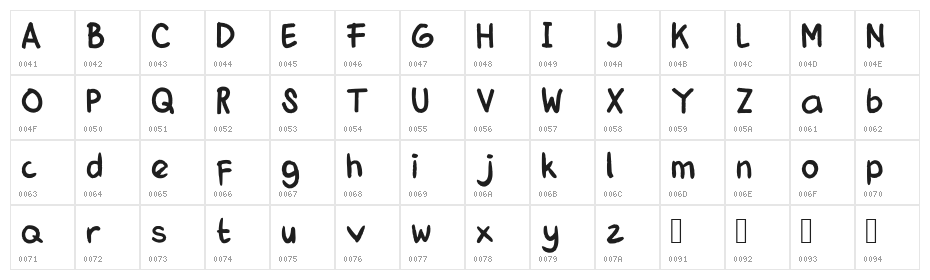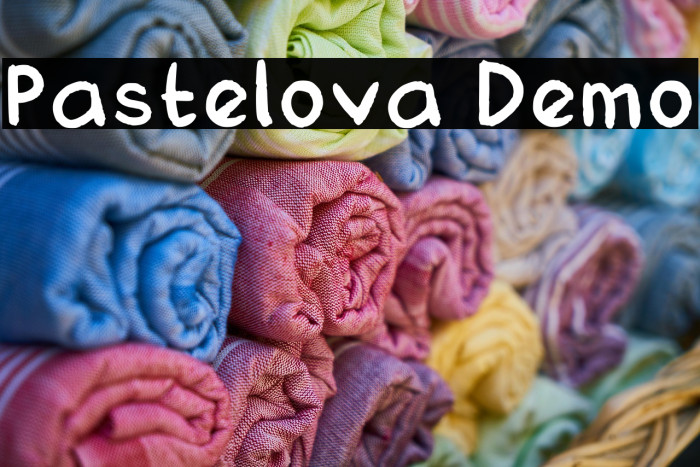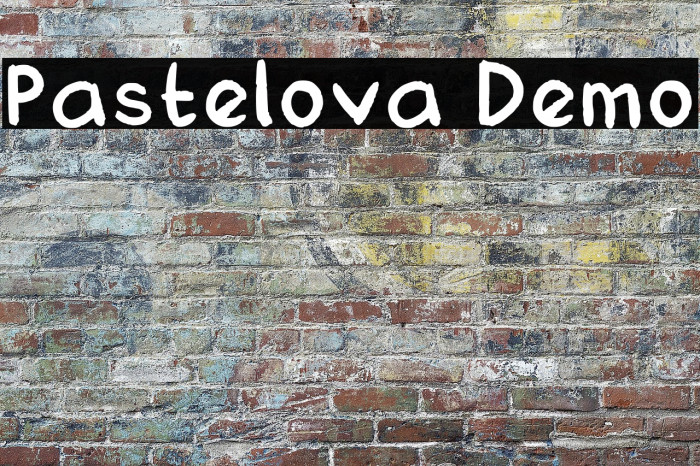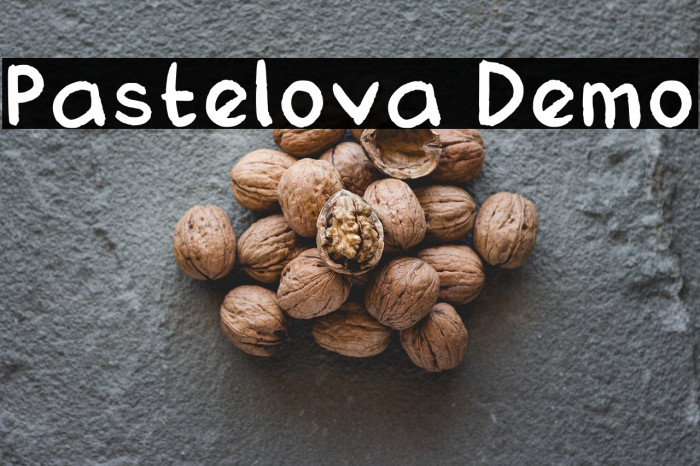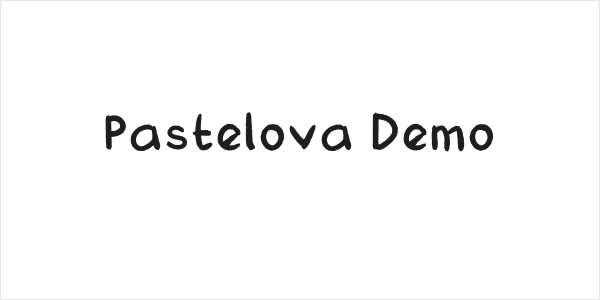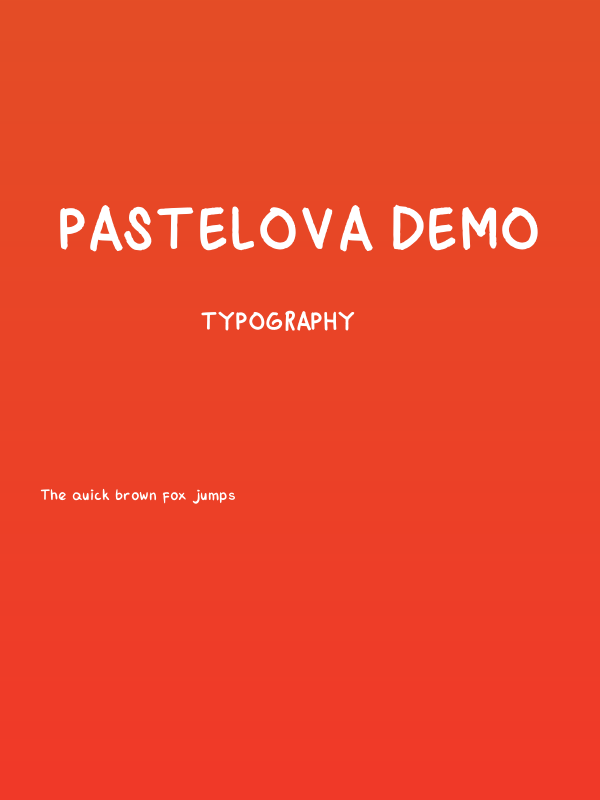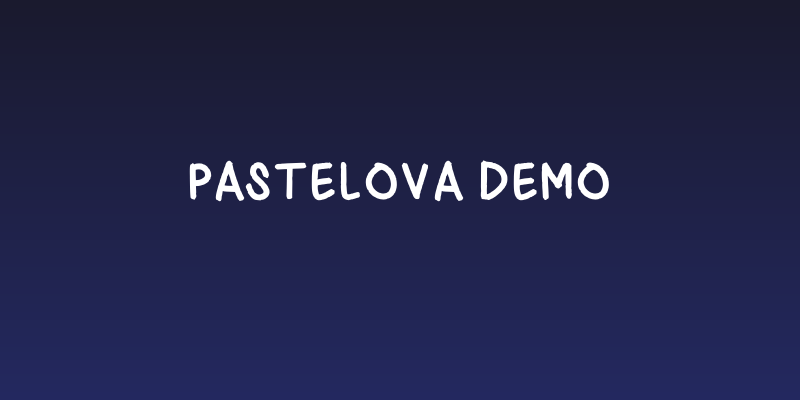
Pastelova Demo Font
Pastelova Demo Description
This font features a playful and casual handwritten style, characterized by its rounded and slightly irregular letterforms. The strokes are bold and consistent, giving it a friendly and approachable appearance. The uppercase and lowercase letters maintain a uniform height, contributing to its cohesive look. The font's informal nature makes it suitable for creative projects that require a personal touch. Its readability is enhanced by the clear distinction between each character, making it versatile for various design applications.
| Proposed Projects | Ideal for children's books, greeting cards, playful branding, and informal invitations. |